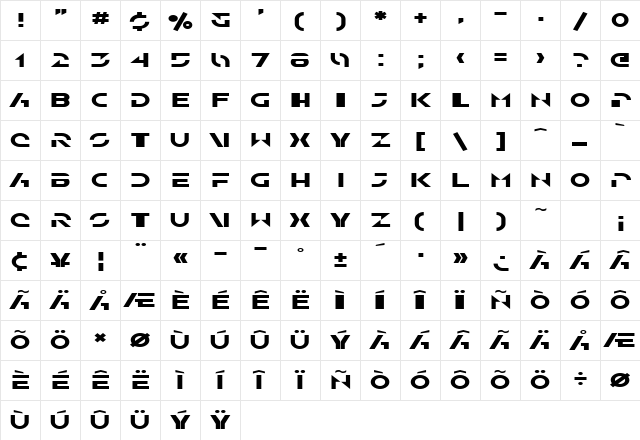
Complete SF Solar Sailer Extended Regular glyph index. Displaying only characters natively supported by SF Solar Sailer Extended Regular font.
SF Solar Sailer Extended is a composed and adaptable typeface that performs quietly and consistently across a wide range of design contexts.